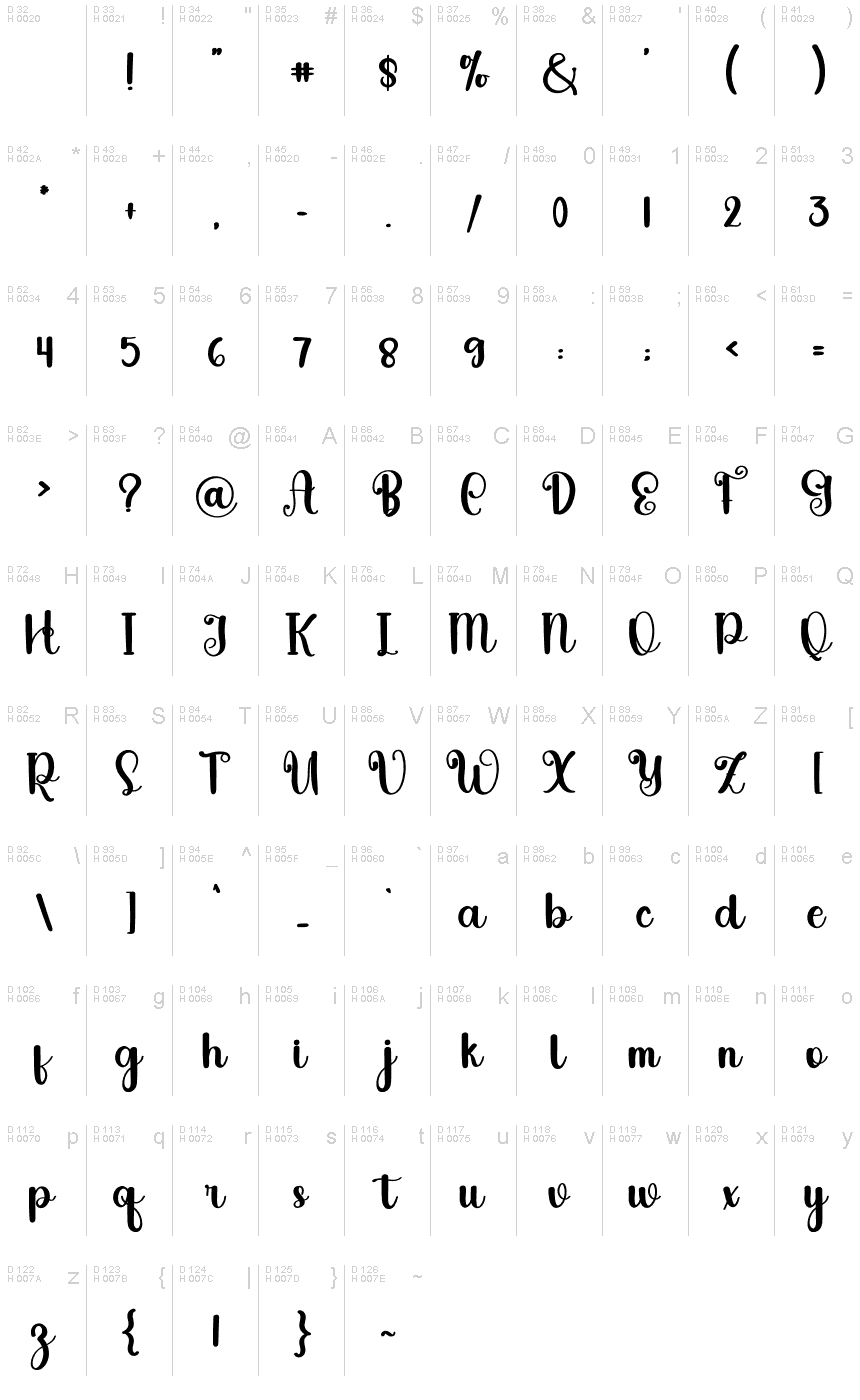
Cinematic
Cinematic, the captivating calligraphy font by FreshtypeINK, adds an exquisite touch to any project. With its elegant strokes and graceful curves, this font is perfect for wedding invitations, luxurious branding materials, and high-end fashion editorials. Cinematic's versatility shines through in movie posters and film titles, effortlessly conveying drama and sophistication. Its sleek lines lend a refined appeal to magazine covers and book designs, making it an ideal choice for captivating audiences. Elevate your creations with the timeless beauty of Cinematic.